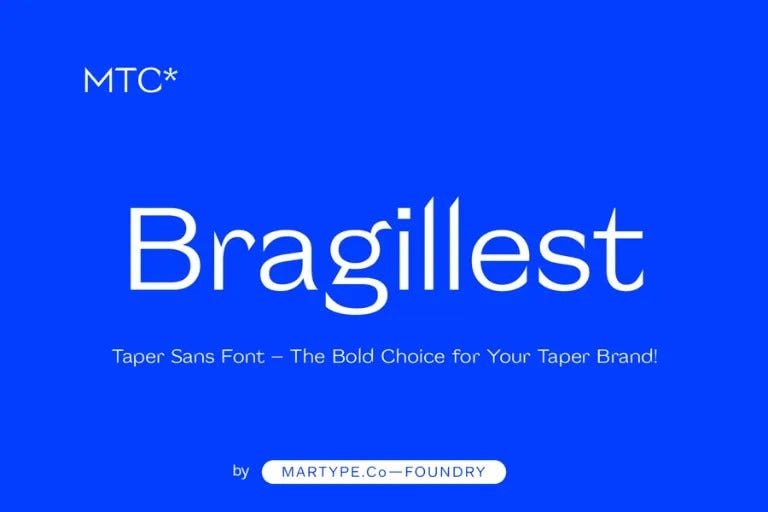
Bragilest Font
Bragilest Font is the best suitable font for attractive titles and presentations. Exemplary for designers who need a contemporary and grand image with a contemporary and elegant style for posters, headlines, fashion, coffee, modules and more
Bragilest Sans Serif Font